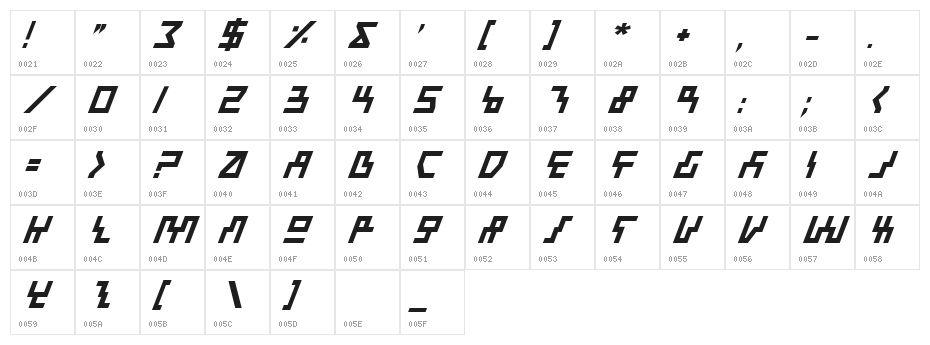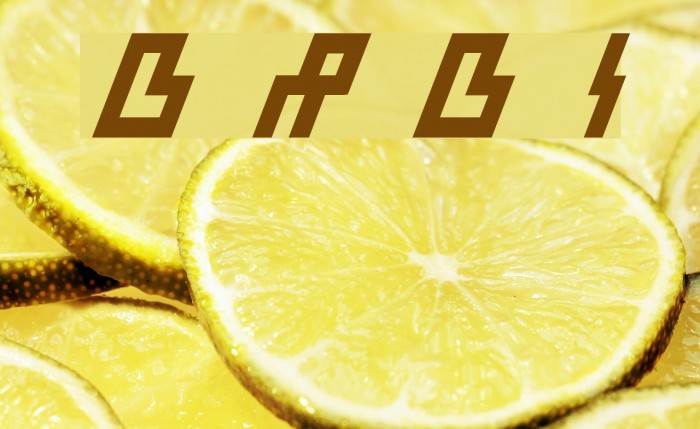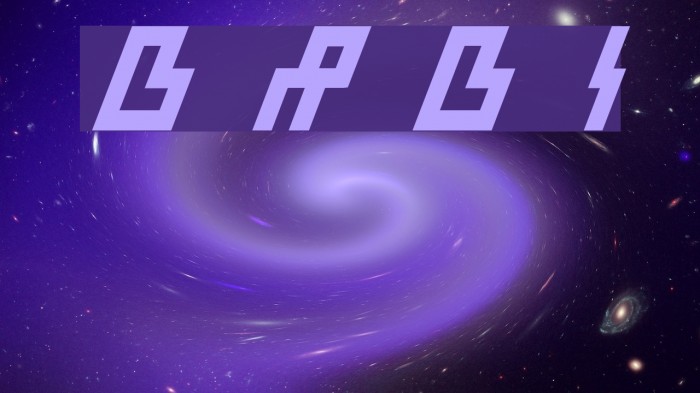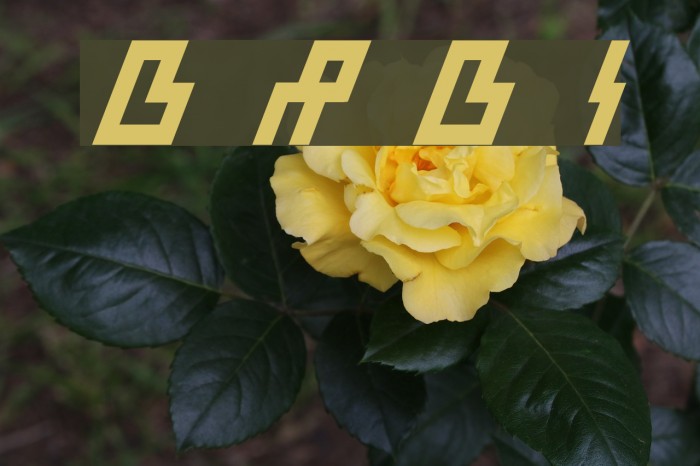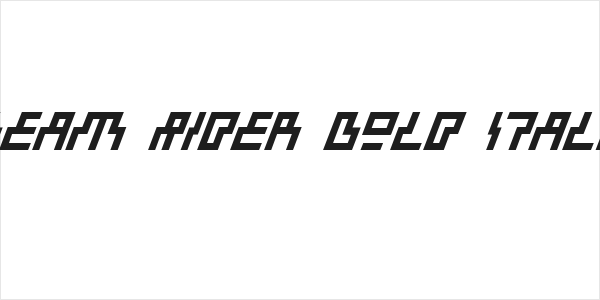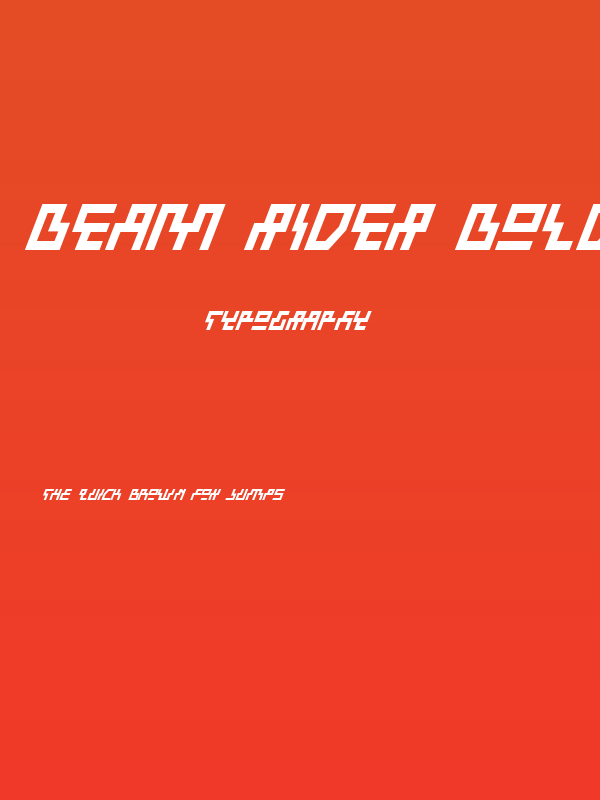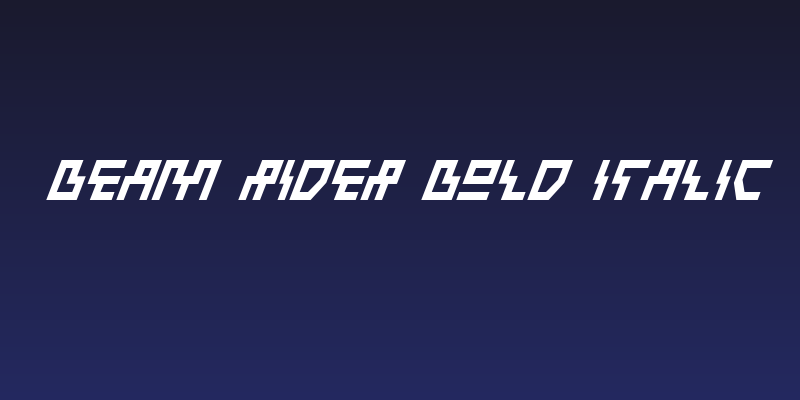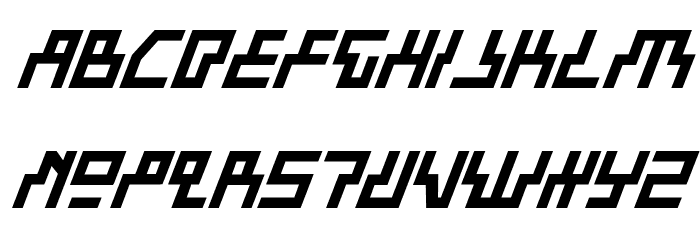
Beam Rider Bold Italic Font
Beam Rider Bold Italic Description
This font features a bold and italicized style with a futuristic and angular design. The characters are sharply defined with a consistent slant, giving them a dynamic and energetic appearance. The uppercase letters are particularly striking, with geometric shapes and sharp angles that create a sense of movement. The lowercase letters maintain this angular aesthetic, ensuring uniformity across the typeface. Numbers and special characters are designed with the same bold and angular style, making them easily recognizable and visually impactful. The overall design is modern and edgy, suitable for projects that require a strong and futuristic look.
| Proposed Projects | Ideal for sci-fi themed projects, video game titles, tech branding, and futuristic posters. |